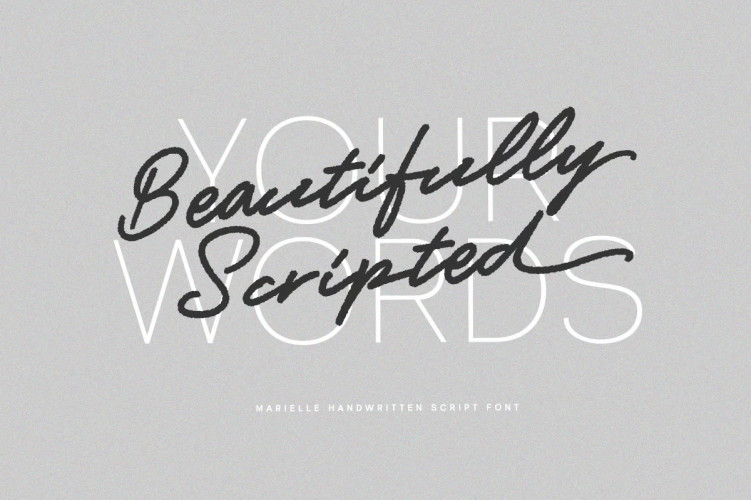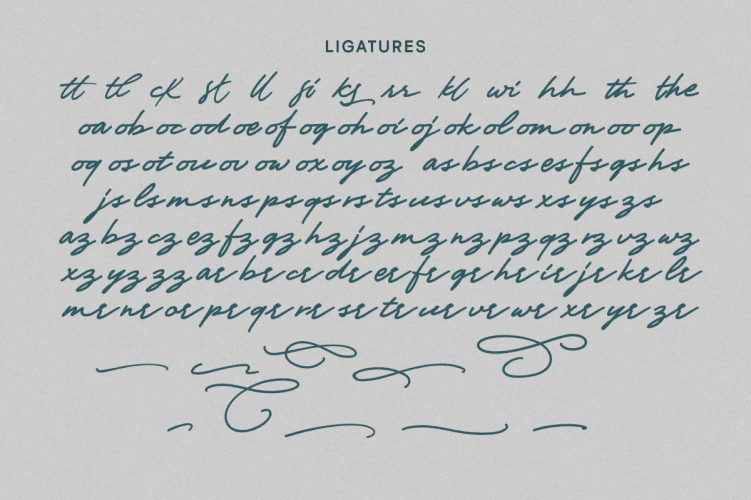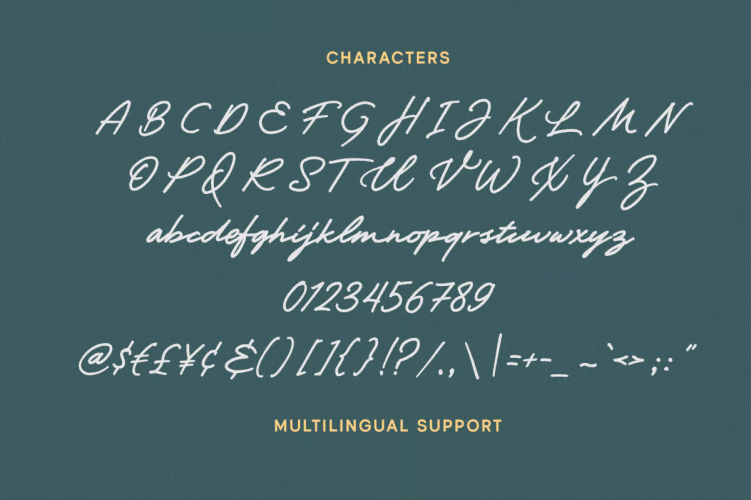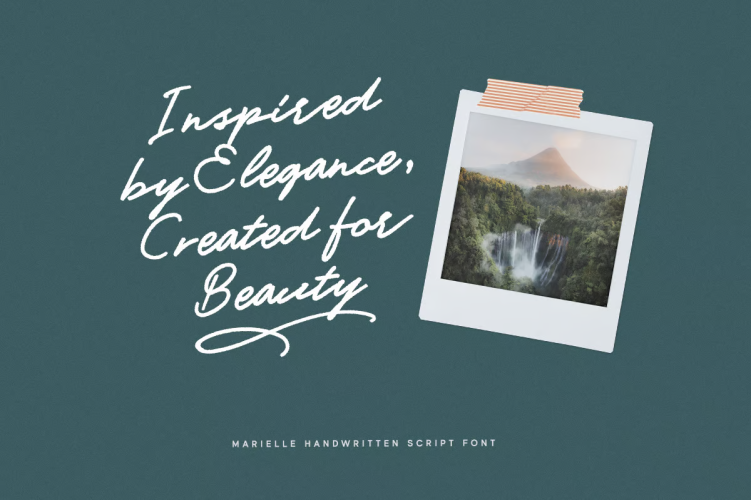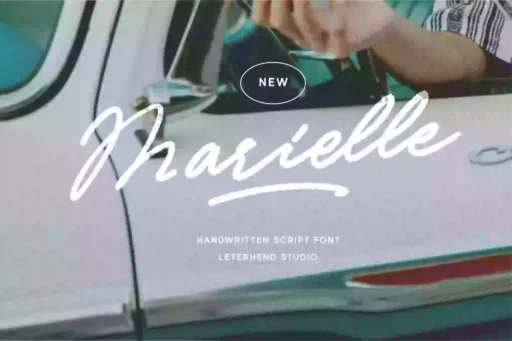
Marielle Font
Marielle offers a graceful handwritten script with a natural brush style. Its fluid strokes add a personal touch to any project. Use it for logos, invitations, labels, a…
Marielle offers a graceful handwritten script with a natural brush style. Its fluid strokes add a personal touch to any project. Use it for logos, invitations, labels, and magazines. It also works well for books, greeting cards, weddings, packaging, fashion, and stationery. It brings sophistication and style to both formal and creative designs.
Where Marielle Font works best
Marielle Font brings a personal, handwritten warmth to invitations, menus and place cards.
Craft brands — coffee, cosmetics, bakery — use scripts like Marielle Font for signature-style logos and labels.
Pair Marielle Font with a plain sans for quotes, stories and Pinterest pins that feel handmade.
What is Marielle Font good for?
Marielle Font is a Script And Handwritten typeface tagged Branding, Brush, Creative, Elegant. It works well for headlines, logos, posters, social media graphics and branding projects that need a distinctive script and handwritten look.